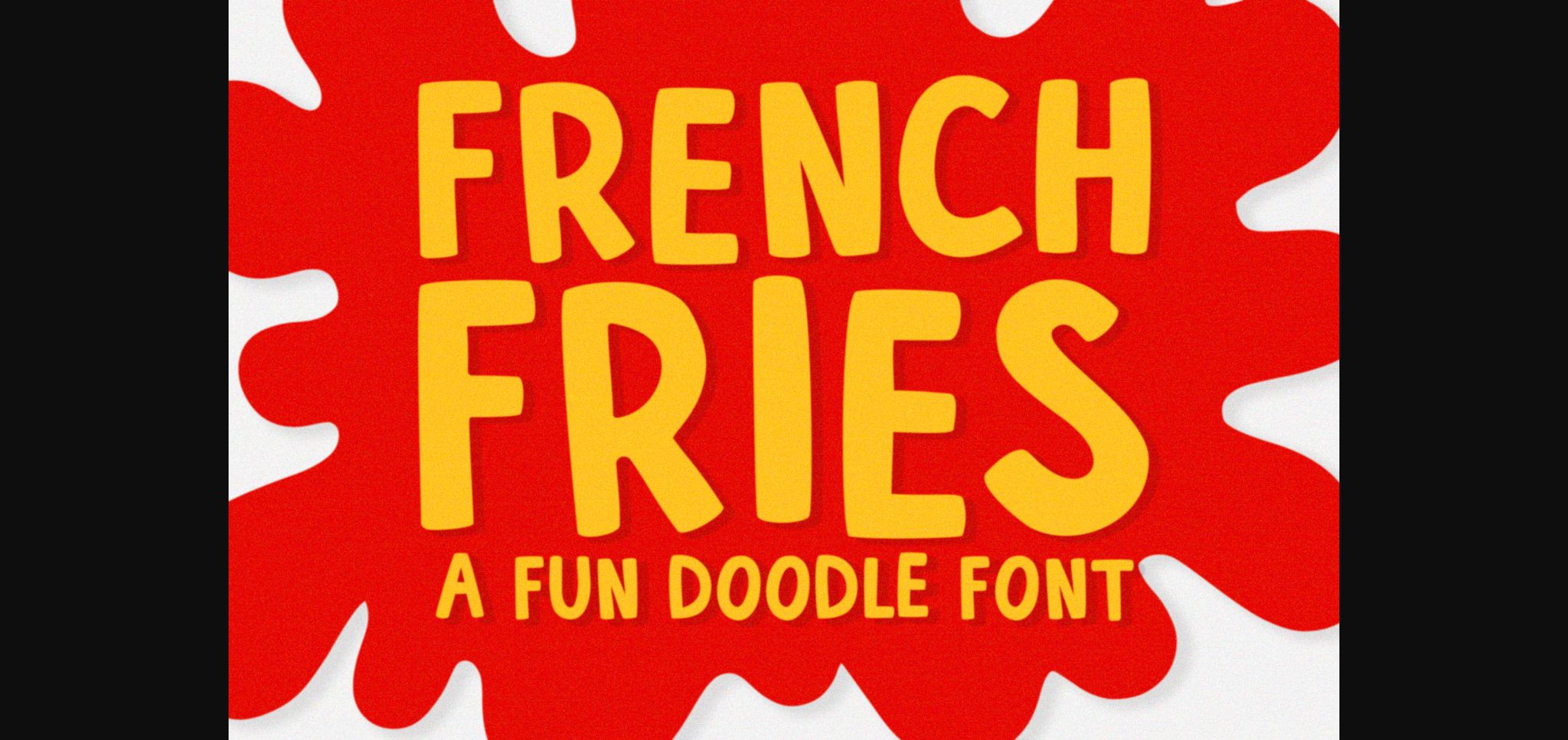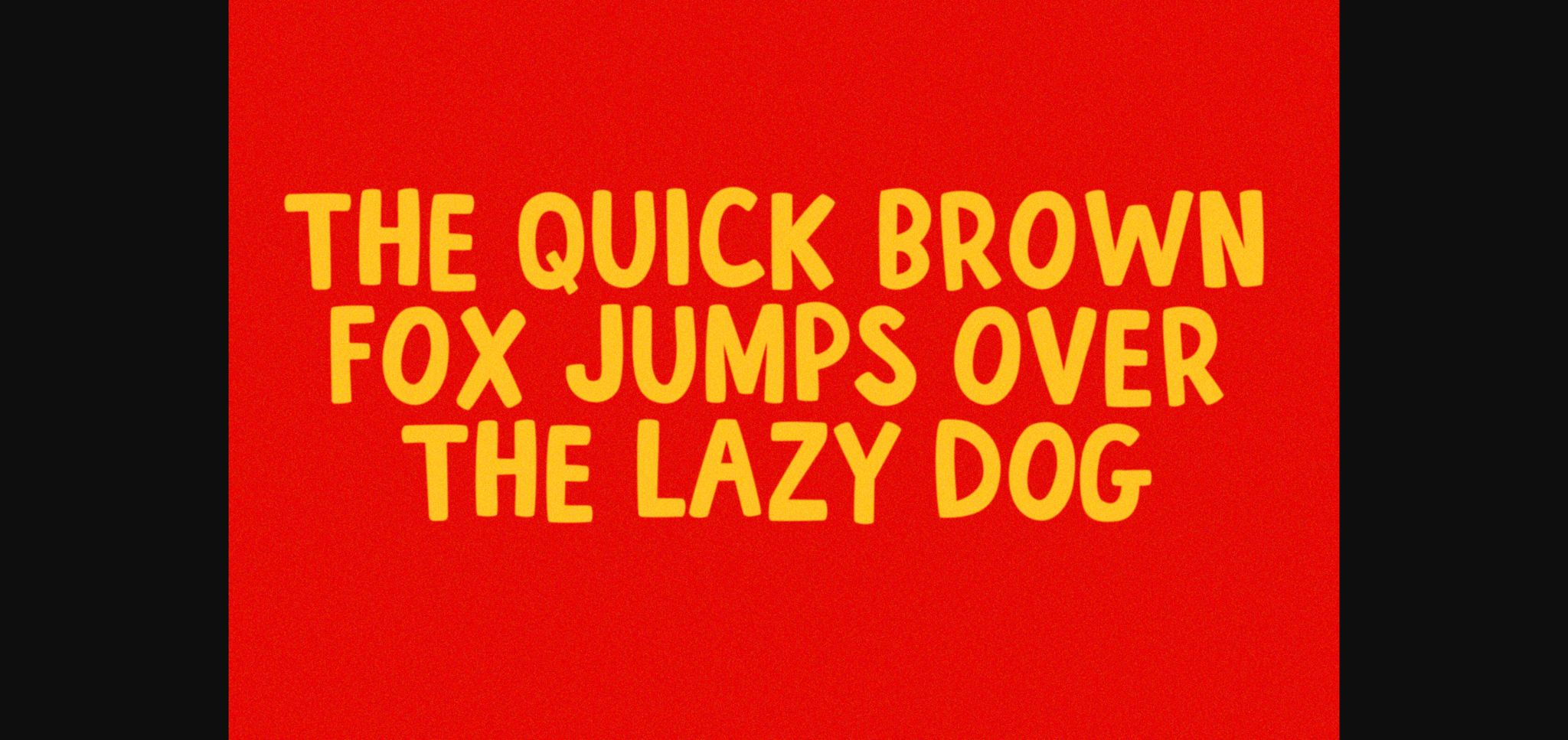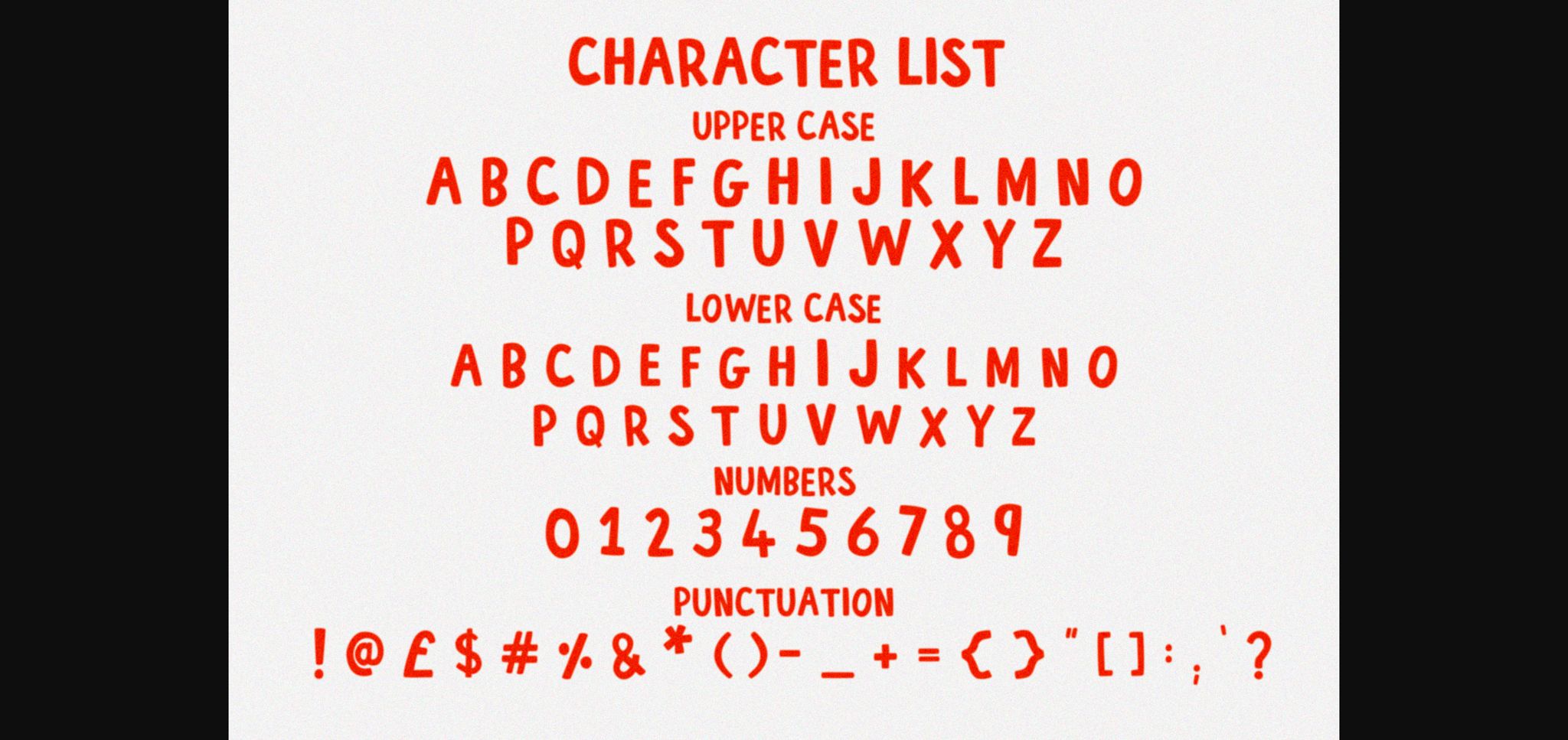
About French Fries Font
French Fries is an all caps bold doodley typeface perfect for any fun quirky design work! This font can be used for anything such as T-Shirt designs, phone cases, greeting cards, invitations, mugs and so much more! Get creative!